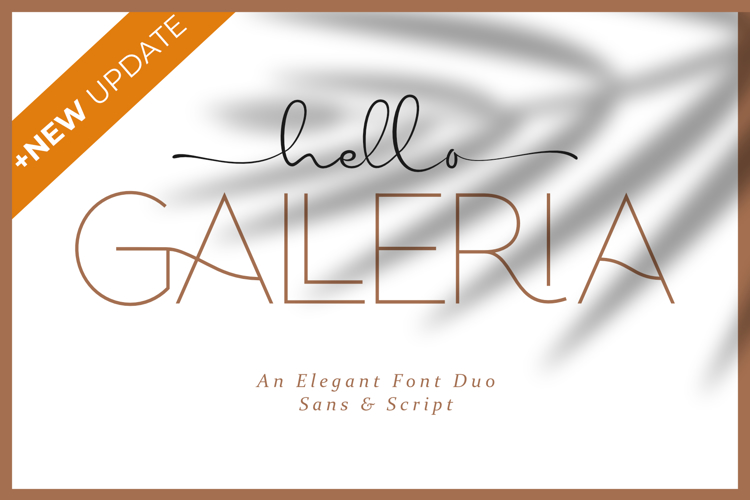
HELLO GALLERIA SANS Font
About HELLO GALLERIA SANS Font
Hello Galleria Sans & Script Font Duo is usually used for wedding events to be placed
on invitation cards or social media broadcast information, Hello Galleria Sans & Script Font Duo